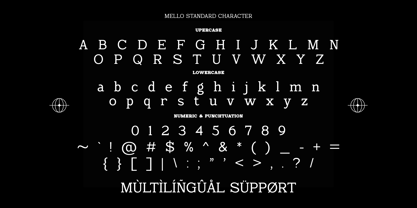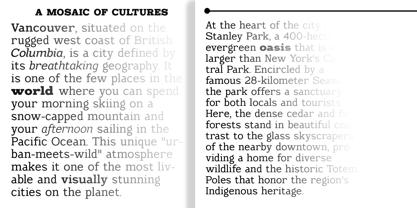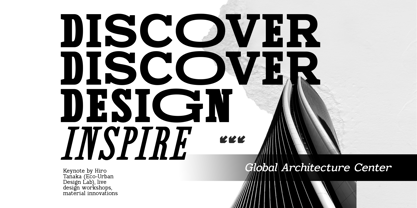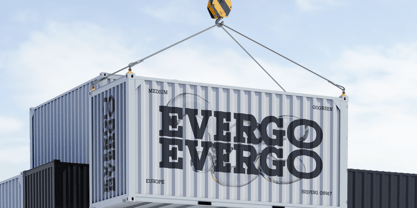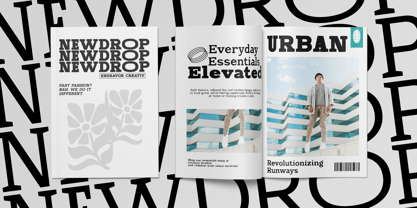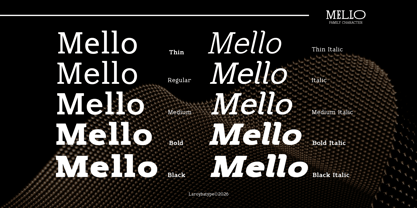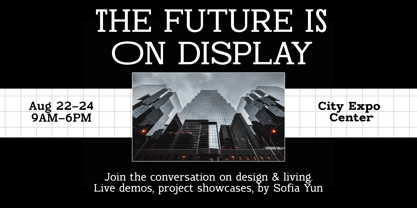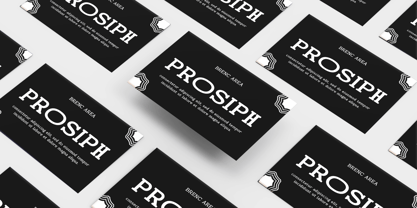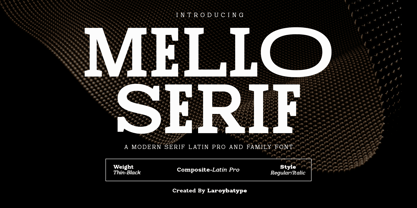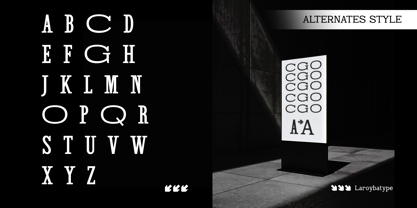
Mello Serif
The Mello Serif Font Family was designed by Habib Abdur Rofi and published by Laroyba Type. Mello Serif contains 18 styles and family package options. More about this family
Mello Serif is a modern serif typeface that combines timeless elegance with contemporary precision. Designed with refined proportions and subtle contrast, it delivers a sophisticated tone while maintaining excellent readability across various applications. With a complete range of weights from Thin to Black and matching italics, Mello Serif offers flexibility for building strong typographic hierarchy—perfect for both editorial and branding projects. Carefully crafted with a Latin Pro character set, this typeface ensures broad language support and professional usability. Mello Serif is ideal for designers who seek a balance between classic beauty and modern aesthetics. Perfect for: Editorial & magazine layouts Branding & identity Luxury & fashion design Headlines and display use Corporate and professional design Features: 10 weights (Thin – Black) Full italic styles Latin Pro support Elegant and modern serif construction High readability